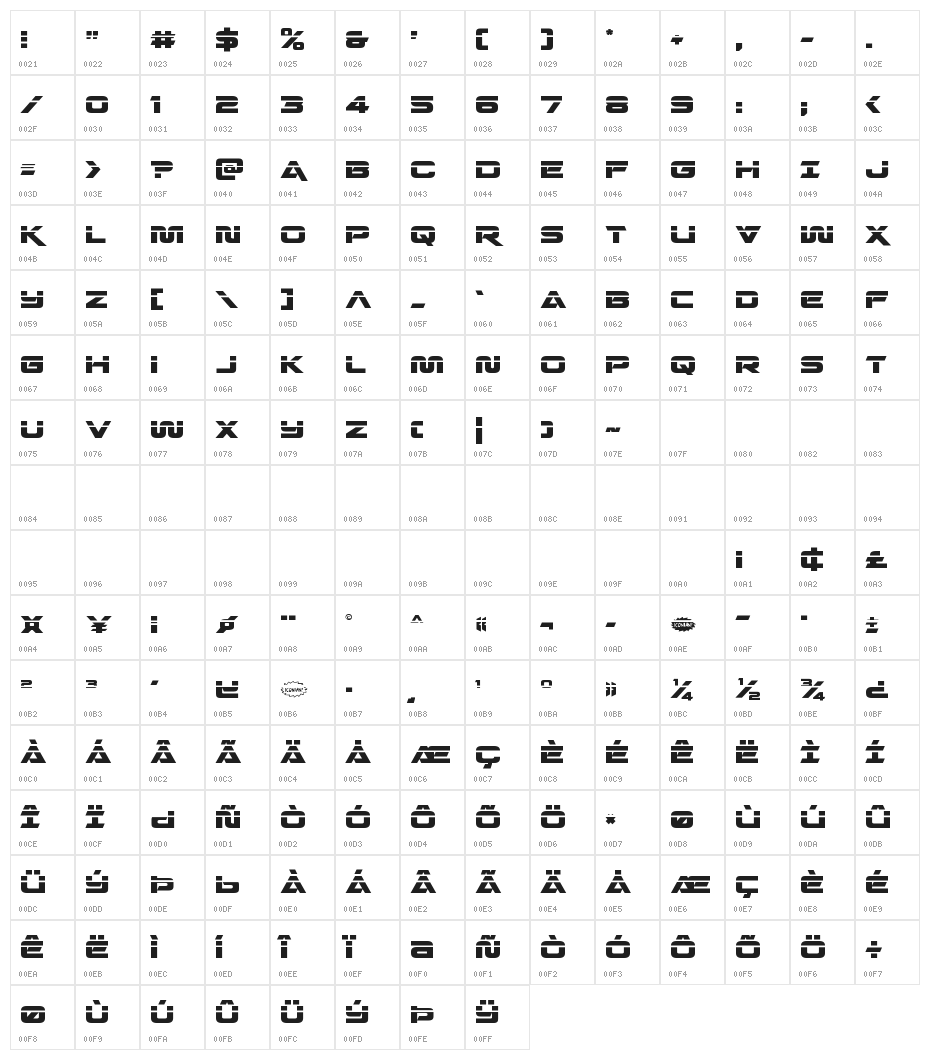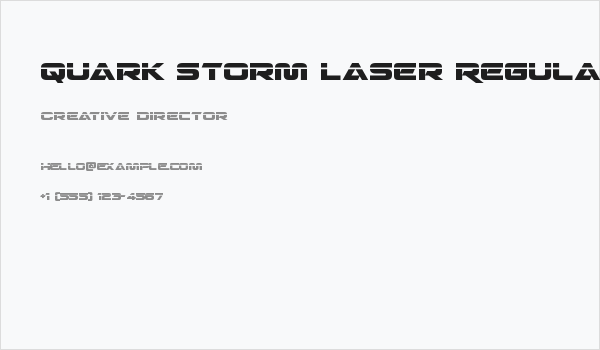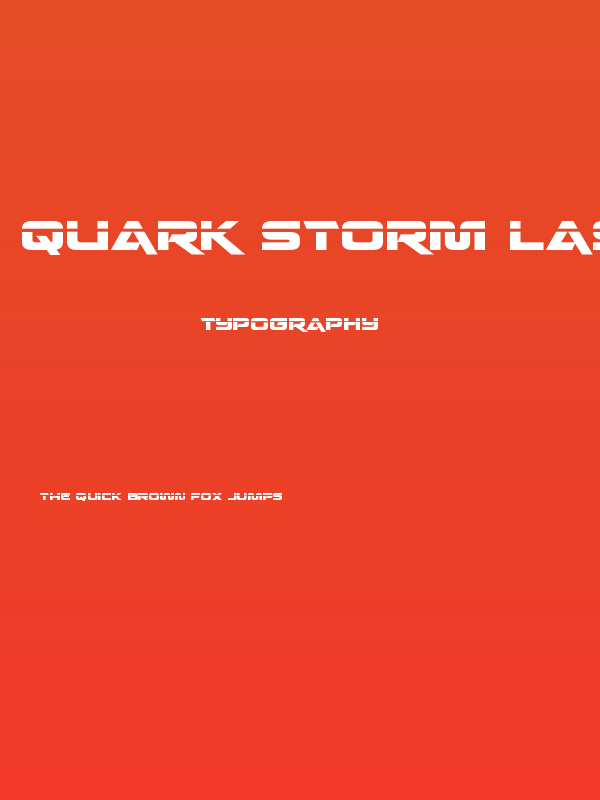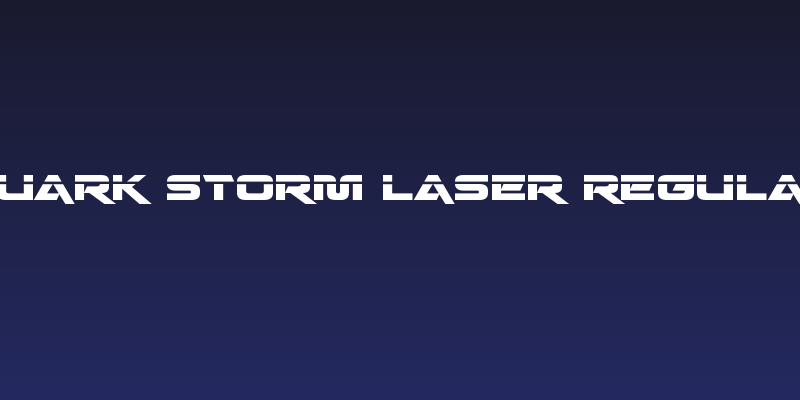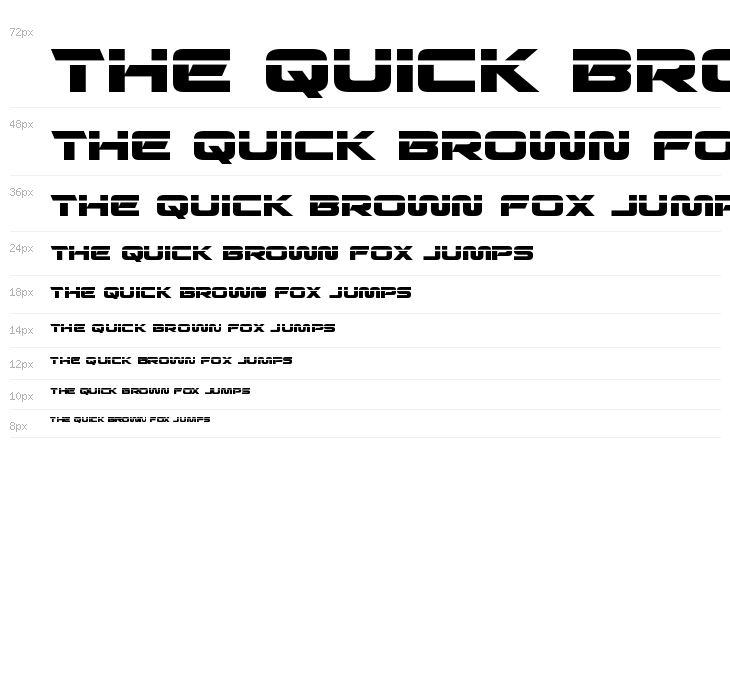
Quark Storm Laser Regular Font
Quark Storm Laser Regular Description
This font features a futuristic and bold design, characterized by its geometric shapes and sharp angles. The uppercase letters are distinct with their cut-out sections and unique styling, giving a sense of movement and energy. The lowercase letters maintain a consistent style, complementing the uppercase with their own angular cuts and bold presence. Numbers and special characters follow the same design principles, ensuring uniformity across all characters. The overall appearance is modern and dynamic, making it suitable for projects that require a strong visual impact.
| Proposed Projects | Ideal for sci-fi themed designs, technology branding, video game titles, and futuristic posters. |